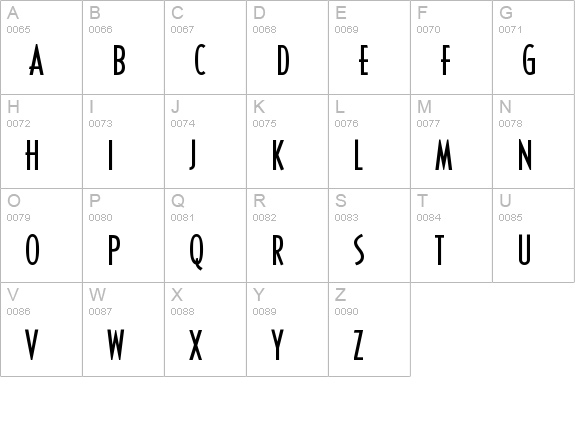
Southwestern Bold is a strong, high-contrast variant in the Southwestern typeface family \xE2\x80\x94 well suited to headlines, attention-grabbing titles, and strong calls-to-action.
Introducing Southwestern Bold, a captivating and versatile font that embodies the spirit of the American Southwest with its bold and daring design. This font exudes a sense of adventure and ruggedness, making it perfect for a wide range of creative projects. With its strong and commanding presence, Southwestern Bold commands attention and leaves a lasting impression. Its unique combination of sharp angles and bold strokes create a striking visual impact that is sure to captivate your audience. This font is not only visually stunning but also highly legible, making it ideal for both print and digital media. Whether you're designing a logo, creating a poster, or crafting a website, Southwestern Bold will bring your project to life with its distinct and memorable style. What makes Southwestern Bold even more enticing is the fact that it is freely available to download at FontsMarket.com. This means that you can easily access and use this remarkable font in your creative endeavors without any hassle. Embrace the freedom to unleash your creativity and let Southwestern Bold elevate your designs to new heights. So, if you're looking for a font that embodies the boldness and adventurous spirit of the American Southwest, look no further than Southwestern Bold. Download it for free at FontsMarket.com and embark on a visual journey that is sure to leave a lasting impression.